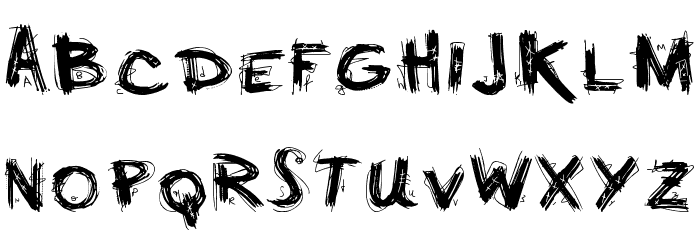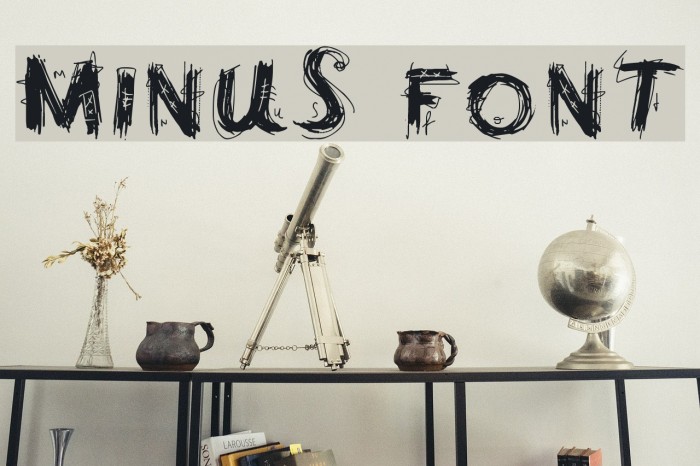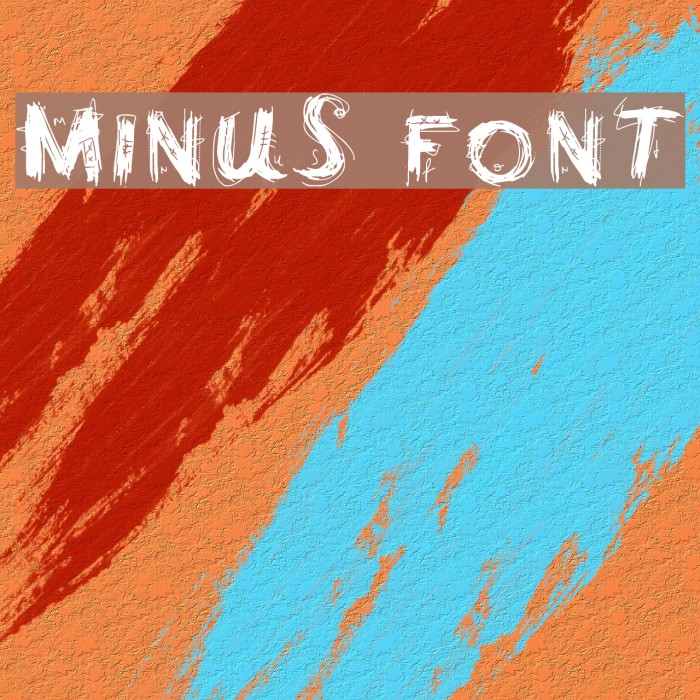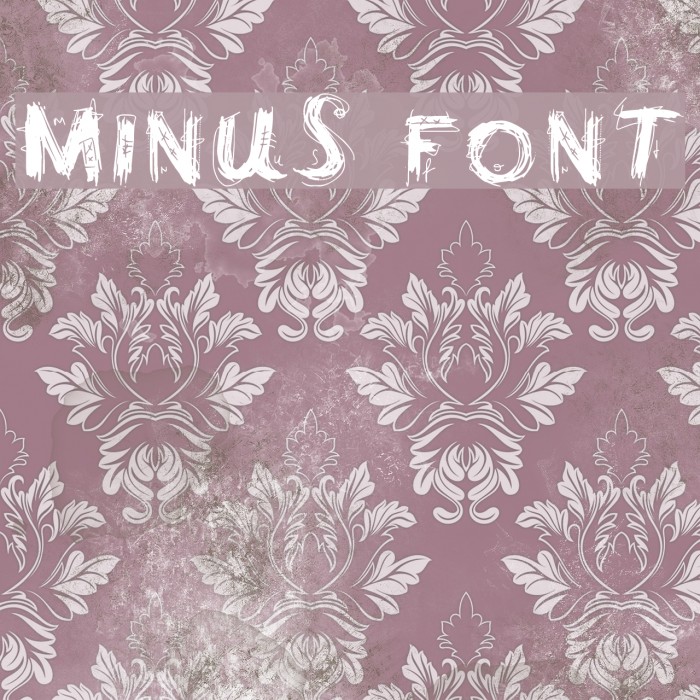
minus Font
This font features a highly decorative and distressed style, characterized by rough, jagged edges and a hand-drawn appearance. Each letter is unique, with varying stroke thicknesses and irregular shapes, giving it an edgy and chaotic feel. The uppercase and lowercase letters maintain a consistent style, while numbers and special characters follow the same aesthetic. This font is designed to capture attention and convey a sense of urgency or intensity, making it ideal for creative and unconventional projects.
A decorative, distressed font with a chaotic, hand-drawn style.
- Proposed Projects: Ideal for album covers, horror movie posters, edgy branding, and artistic event flyers.